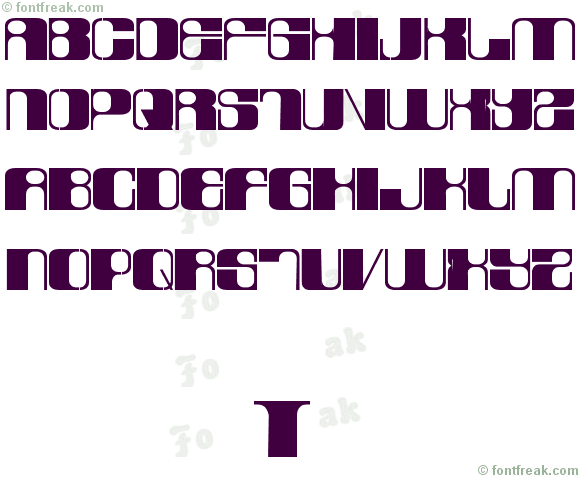
LaurelOrHardy
About Lauren Or Hardy?
Introducing the "Lauren Or Hardy?" font by Frode Nordbø, a distinctive display typeface that captures the essence of playful elegance. This shareware font features a unique blend of characteristics that make it a captivating choice for various design projects. With its slightly rounded strokes, moderate contrast, and whimsical flair, this font embodies a blend of contemporary design and classic charm. The spacing is thoughtfully crafted to ensure readability while maintaining a lively rhythm that draws attention.
The "Lauren Or Hardy?" font is particularly well-suited for a range of creative applications. It shines in wedding invitations, where its charming curves can add a touch of romance and personality. Additionally, it makes an eye-catching choice for movie posters, helping to convey the tone and theme of a film with its playful yet sophisticated appearance. Restaurant menus can also benefit from this font, as it can evoke a sense of warmth and welcome, enhancing the dining experience. Graphic designers will find this font ideal for branding projects, especially for businesses aiming to establish a unique identity that resonates with their audience.
The target audience for the "Lauren Or Hardy?" font includes graphic designers, small business owners, and content creators who seek to incorporate a distinctive and memorable typeface into their work. Its versatility allows for creative expression across various mediums, making it an essential addition to any designer's toolkit.
What truly sets the "Lauren Or Hardy?" font apart is its delightful balance between fun and sophistication. This font captures attention without overwhelming, offering a unique voice that enhances any design project. If you’re looking for a font that stands out while maintaining elegance, consider the "Lauren Or Hardy? font free download" to elevate your creative endeavors.